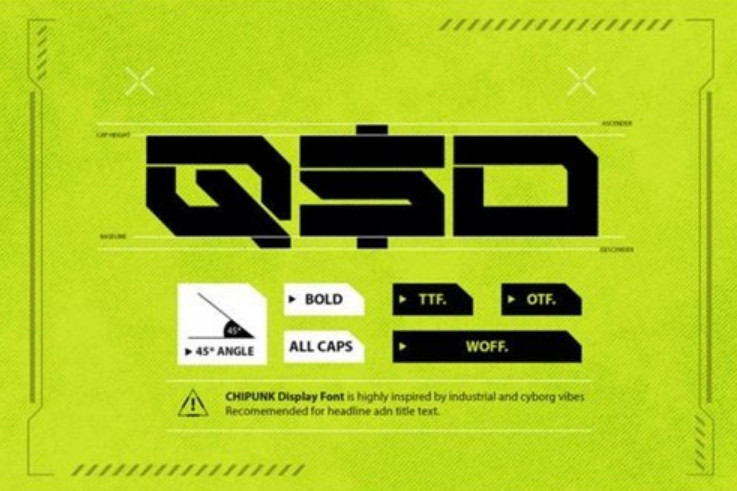
How outstanding! Chipunk Display Font is gaming display font is a font with bold and good shape. Really match to make an iconic word mark Logo , Product Logo, Poster movie, games, and many more.
| Designer Name: | Two Us Studio |
| Classification: | Display Fonts, Stencil Fonts, Techno / Futuristic Fonts |